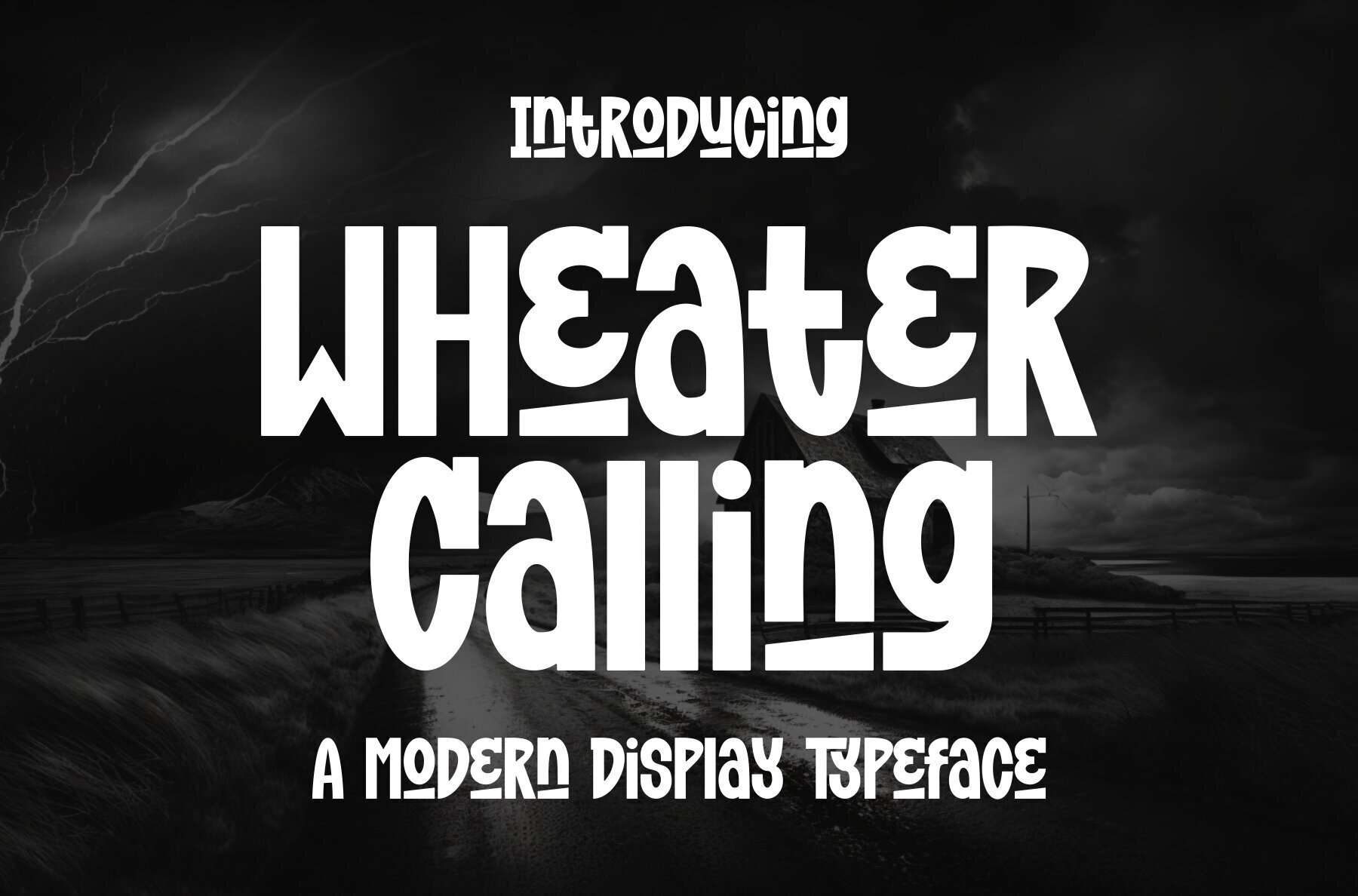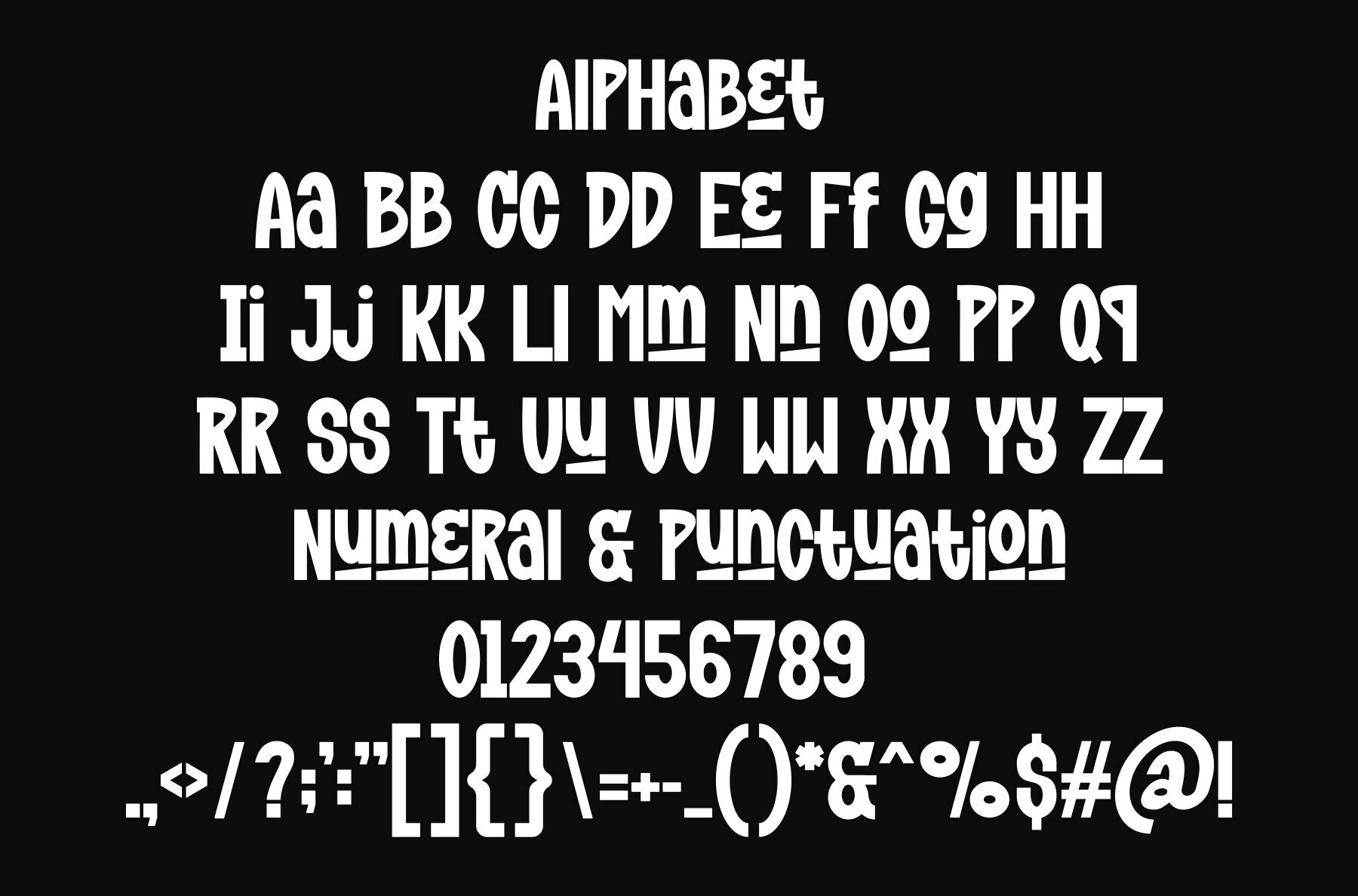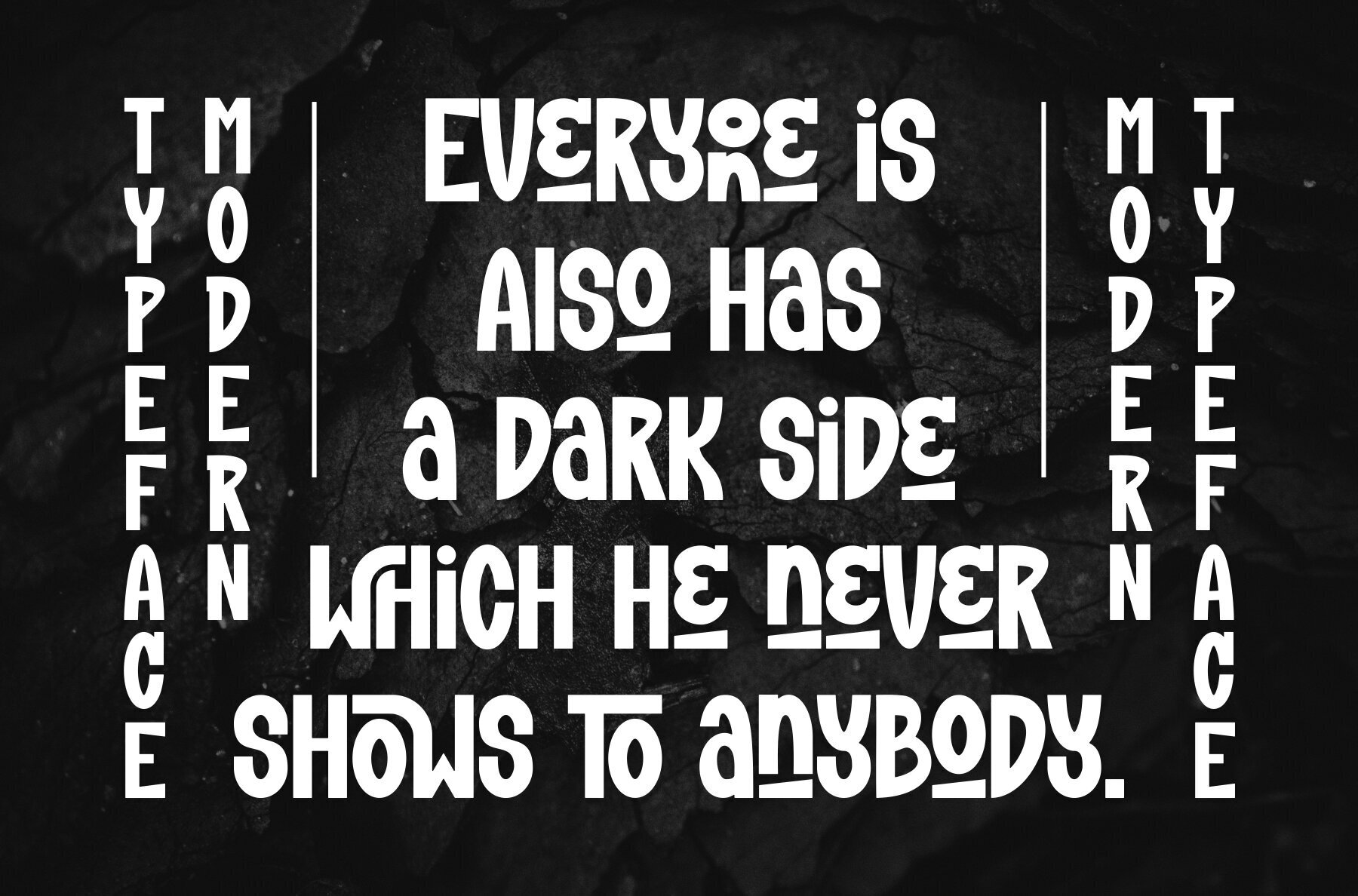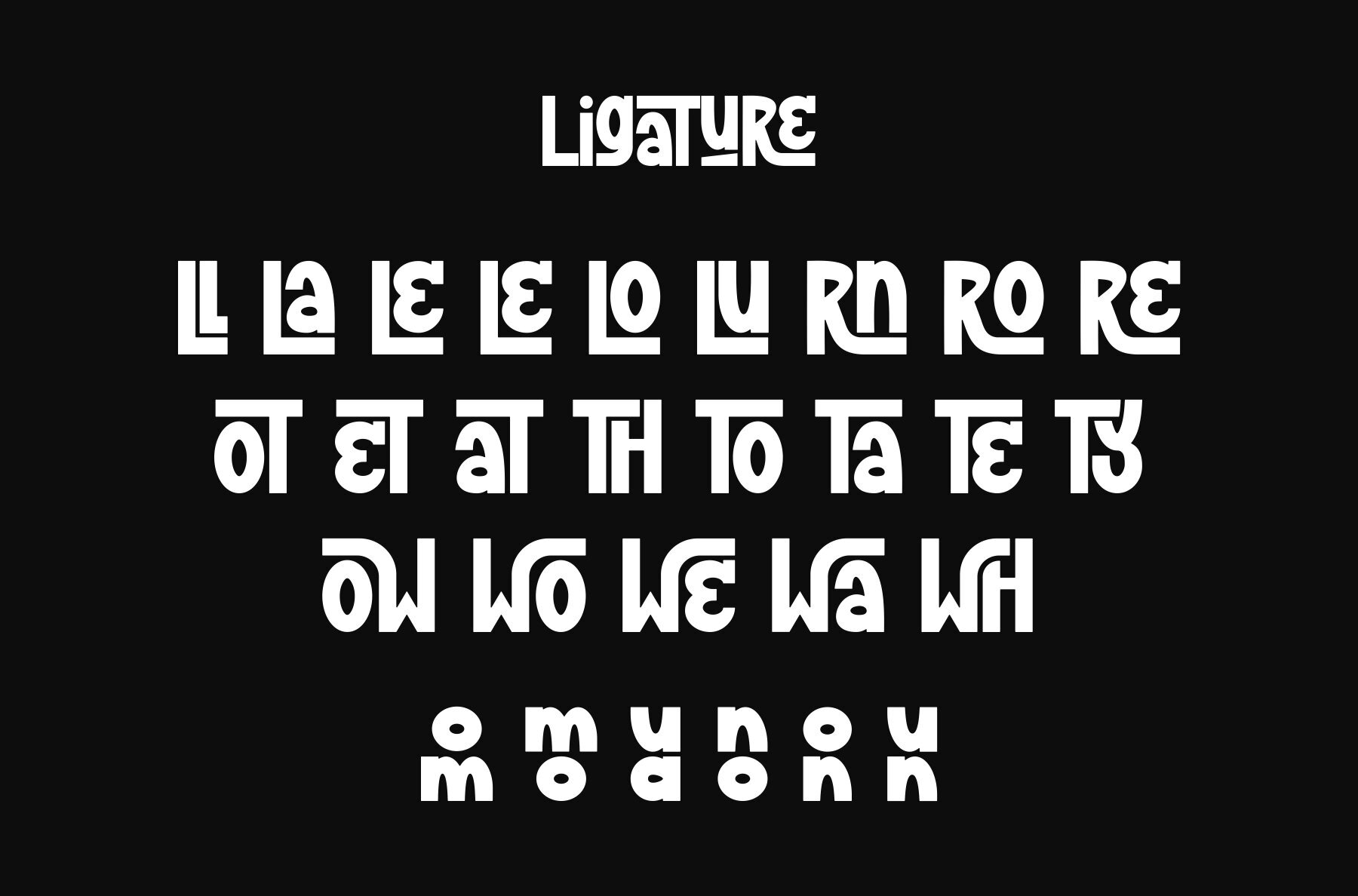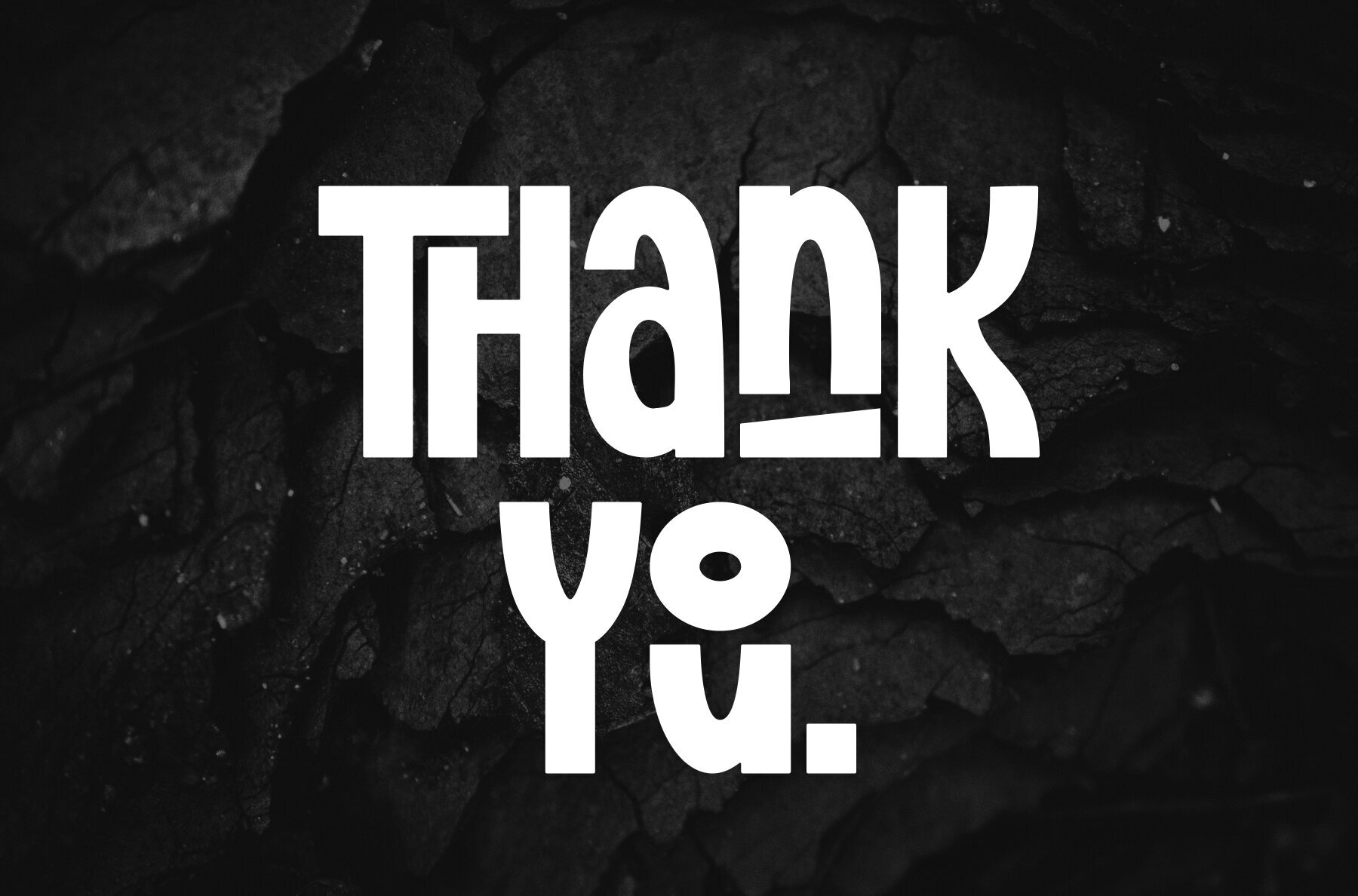
Wheater Calling Font
Wheater Calling
The Wheater Calling Font is a striking modern display font. It's ideal for any branding project, from logos to t-shirt printing and more. This font stands out across various contexts with its bold, authentic style.Wheater Calling: Bold and Authentic Modern Display Font